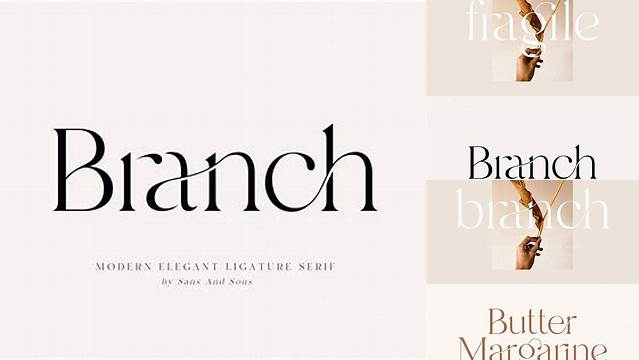
Hey guys! Are you on the hunt for that perfect font to elevate your design projects? Look no further! Today, we're diving deep into the world of the branch modern ligature font free, a true gem for designers aiming for a touch of elegance and sophistication. We'll explore what makes this font so special, how to use it effectively, and where you can snag it for free. Get ready to unleash your creativity!
1. Understanding Modern Ligature Fonts
Modern ligature fonts are all about combining style and readability. Ligatures, in essence, are when two or more characters are joined together to create a single, more aesthetically pleasing glyph. This not only enhances the visual appeal but also improves the overall flow of the text. The branch modern ligature font free takes this concept and runs with it, offering a sleek and contemporary design that's perfect for a wide range of applications. Think logos, headlines, branding materials, and even body text where you want to make a statement. The beauty of modern ligature fonts lies in their ability to add a touch of uniqueness without sacrificing clarity. They bridge the gap between traditional typography and modern design sensibilities. When selecting a modern ligature font, consider the overall tone and message you want to convey. A branch modern ligature font free often exudes sophistication and professionalism, making it ideal for businesses and brands that want to project a refined image. However, it's crucial to ensure that the ligatures are well-designed and don't hinder readability. Experiment with different font weights and sizes to see how the ligatures behave in various contexts. Remember, the goal is to enhance the visual appeal without compromising the legibility of the text.
2. Key Features of the Branch Font
What exactly sets the branch modern ligature font free apart from the crowd? Well, it's a combination of factors. Firstly, the font boasts a clean and minimalist design, making it incredibly versatile. It works well in both large and small sizes, ensuring that your message is always clear and impactful. Secondly, the ligatures are meticulously crafted to seamlessly blend together, creating a harmonious and visually appealing flow. Each ligature feels intentional and adds to the overall aesthetic of the font. Thirdly, the branch modern ligature font free often comes with a range of weights and styles, giving you the flexibility to adapt it to different design needs. Whether you need a bold headline or a delicate body text, this font has you covered. Furthermore, many variations include OpenType features, allowing you to access even more ligatures and stylistic alternates. This level of customization ensures that you can truly make the font your own. Finally, the branch modern ligature font free is often available in multiple formats, such as OTF and TTF, making it compatible with a wide range of design software. This ensures that you can easily integrate it into your workflow, regardless of your preferred tools. When evaluating the features of a font, always consider its versatility, readability, and compatibility with your design software.
4. Using Branch Fonts in Logo Design
The branch modern ligature font free is exceptionally well-suited for logo design. The elegance and sophistication inherent in these fonts can instantly elevate a brand's image. When using a branch modern ligature font free for a logo, consider the brand's personality and values. A minimalist and clean font would be ideal for a modern and tech-savvy company, while a more ornate and decorative font might be better suited for a luxury brand. Start by sketching out different logo concepts using the branch modern ligature font free. Experiment with different font sizes, weights, and styles to see what works best. Pay close attention to the ligatures and how they interact with each other. They can add a unique and memorable touch to the logo. Consider incorporating other design elements, such as icons or illustrations, to complement the font. However, be careful not to overcrowd the logo. Simplicity is often key. Once you have a few promising logo concepts, test them out in different contexts. See how they look on business cards, websites, and social media profiles. Make sure the logo is legible and impactful in both large and small sizes. Get feedback from others. Ask for their opinions on the logo's design, readability, and overall appeal. Use their feedback to refine your design and make it even better. Remember, a logo is a crucial part of a brand's identity. It should be memorable, recognizable, and reflective of the brand's values. By using a branch modern ligature font free thoughtfully and strategically, you can create a logo that truly stands out.
5. Branch Fonts for Website Headers
Website headers are prime real estate for making a strong first impression, and a branch modern ligature font free can be the perfect way to do just that. Using these fonts for website headers adds a touch of sophistication and elegance, instantly grabbing the visitor's attention. When selecting a branch modern ligature font free for your website header, ensure it aligns with your website's overall design and brand identity. The font should be legible and easy to read, even at larger sizes. Consider the website's color scheme and choose a font that complements it. Contrast is key to ensuring readability. Experiment with different font sizes and weights to find the perfect balance. The header should be visually appealing without being overwhelming. Use the branch modern ligature font free to highlight key messages or taglines. A well-crafted header can communicate the essence of your brand in a concise and memorable way. Be mindful of mobile responsiveness. The header should look great on all devices, from desktops to smartphones. Test the header on different screen sizes to ensure readability and visual appeal. Optimize the header for search engines. Use relevant keywords in the header text to improve your website's search ranking. A well-optimized header can attract more traffic to your website. Regularly update your website header to keep it fresh and engaging. Consider using seasonal or promotional headers to highlight special offers or events. A dynamic header can keep visitors coming back for more. Remember, your website header is your digital storefront. It should be welcoming, informative, and visually appealing. By using a branch modern ligature font free strategically, you can create a header that truly captures the attention of your audience.
6. Branch Fonts in Print Materials
Don't underestimate the power of print! A branch modern ligature font free can add a touch of class to brochures, business cards, and posters. Choosing the right font for print materials is just as important as choosing the right images and layout. When selecting a branch modern ligature font free for print, consider the overall design and message of the piece. A clean and elegant font is ideal for formal occasions, while a more playful and whimsical font might be better suited for casual events. Ensure the font is legible and easy to read, even at smaller sizes. Print materials are often viewed up close, so readability is crucial. Consider the paper stock and ink color. Different paper stocks and ink colors can affect how the font appears. Test the font on different paper stocks and with different ink colors to see what works best. Use the branch modern ligature font free to highlight key information, such as headings, subheadings, and call-to-actions. A well-designed print piece should be easy to navigate and visually appealing. Be mindful of the printing process. Some fonts may not print well on certain types of printers. Consult with your printer to ensure the font you choose is compatible with their equipment. Proofread your print materials carefully before sending them to print. Errors can be costly and time-consuming to fix. A well-proofread print piece demonstrates attention to detail and professionalism. Remember, print materials are a tangible representation of your brand. They should be well-designed, informative, and visually appealing. By using a branch modern ligature font free thoughtfully, you can create print materials that leave a lasting impression.
7. Combining Branch Fonts with Other Fonts
Even the most beautiful font needs a friend! Knowing how to pair fonts is a crucial skill. When combining a branch modern ligature font free with other fonts, aim for contrast and harmony. The goal is to create a visually appealing and balanced design. Start by choosing a primary font. This will be the main font used for headings and other prominent text. Then, select a secondary font to complement the primary font. The secondary font should be different enough to create contrast but similar enough to maintain harmony. Consider using a sans-serif font as a secondary font for a branch modern ligature font free, or vice versa. Sans-serif fonts are typically cleaner and more modern, while serif fonts are more traditional and elegant. Experiment with different font weights and sizes to see what works best. The primary font should be larger and bolder than the secondary font. Pay attention to the spacing between the fonts. The spacing should be consistent and visually appealing. Use a font pairing tool to help you find complementary fonts. There are many online tools that can suggest font pairings based on your preferences. Get feedback from others. Ask for their opinions on the font pairings you've chosen. Use their feedback to refine your design and make it even better. Remember, font pairing is an art, not a science. There are no hard and fast rules, but by following these guidelines, you can create font pairings that are both visually appealing and effective. The branch modern ligature font free offers amazing flexibility with this.
30. Where to Learn More About Typography
Expand your knowledge and skills. There are many resources available to help you learn more about typography. Online Courses: Platforms like Coursera, Udemy, and Skillshare offer a wide range of typography courses. Books: "The Elements of Typographic Style" by Robert Bringhurst is a classic guide to typography. Websites: Websites like I Love Typography and Typewolf offer valuable information and inspiration. Blogs: Design blogs often feature articles and tutorials on typography. Conferences: Attending design conferences can help you learn from experts in the field. Workshops: Workshops offer hands-on training in typography. Communities: Online forums and communities are a great place to connect with other designers and learn from their experience. Continuous learning is essential for staying up-to-date with the latest trends and techniques in typography. A branch modern ligature font free is just the beginning of your typographic journey!